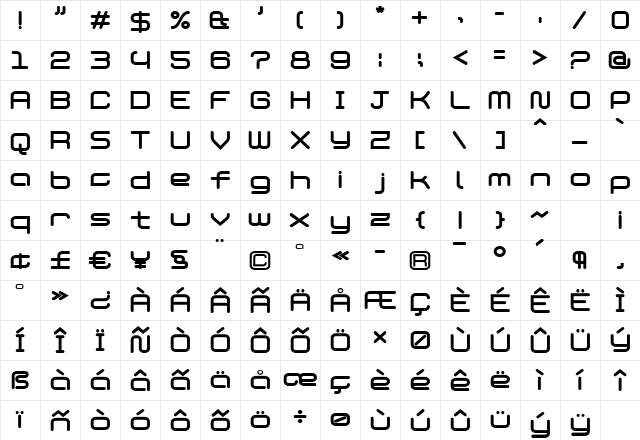
PhantomBold Regular
Design Context for PhantomBold Typeface
PhantomBold offers clean, dependable letterforms without strong stylistic allegiance, making it a practical choice for designers who need flexibility. Its bold stroke weight gives it real presence on the page.
Pro Tip: Pair PhantomBold with a font of contrasting weight or personality to build a more expressive typographic hierarchy.